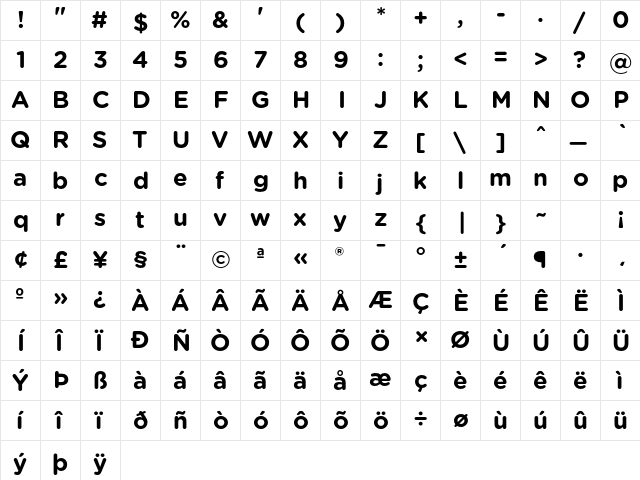
Gotham Rounded Bold
| Foundry | Hoefler & Frere-Jones |
| Designer | Hoefler & Frere-Jones |
Design Context for Gotham Rounded Typeface
Gotham Rounded uses gentle rounded endings to create a warm, inviting typographic personality — less corporate than geometric sans, more refined than playful display fonts. Its bold stroke weight gives it real presence on the page.
Well-suited to UI design, mobile interfaces, and any brand that wants approachability without sacrificing clarity.
Font Pairing: Pairs well with a rounded or humanist sans for body copy, maintaining the friendly tone without relying on Gotham Rounded to carry extended reading.
Pro Tip: Use Gotham Rounded for UI elements, app interfaces, and anywhere a friendly, approachable tone needs to be maintained without sacrificing clarity.